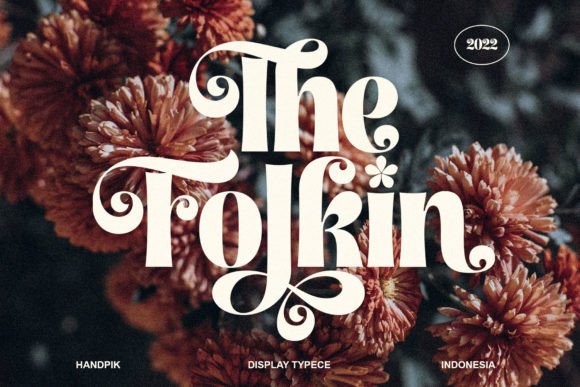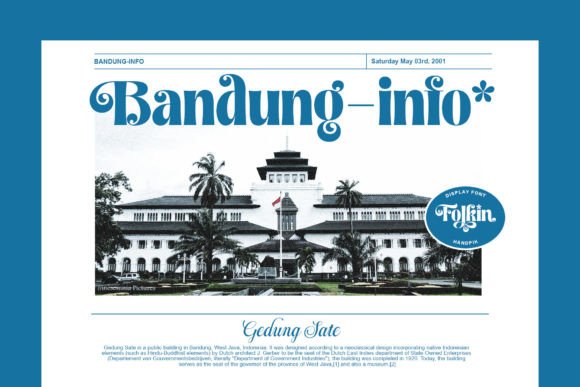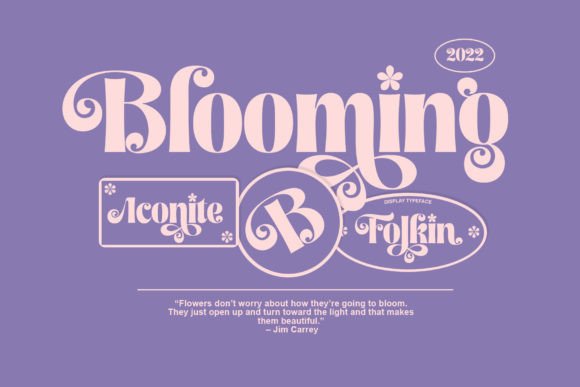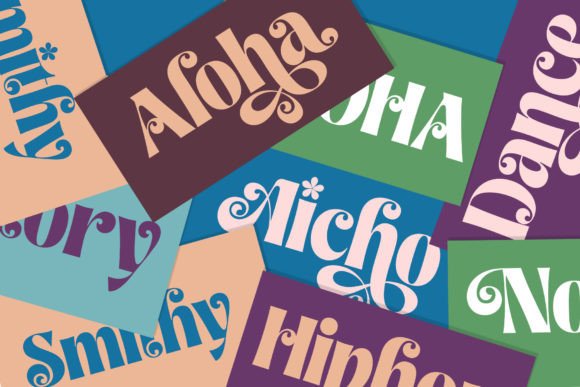
Folkin Font: Elegant Serif Display Font for Logo Design & Branding
About the Folkin Font
Introducing the Folkin Font, a beautifully crafted typeface designed to elevate your creative projects. Folkin is a serif display font that has a classic, feminine and elegant style. Masterfully designed to become a true favorite, this font has the potential to bring each of your creative ideas to the highest level!
Folkin’s elegant serif design excels in display contexts such as logos, headlines, and short-form text on packaging or posters. Its refined forms are less suitable for body copy or extended text blocks where readability suffers. Avoid using it for UI elements or long paragraphs.
The font’s personality is sophisticated and classic, lending itself well to brands emphasizing luxury, beauty, or heritage. It would be a strong choice for projects related to fashion, cosmetics, or fine arts.
Pairing Folkin effectively requires considering its inherent elegance. A clean sans-serif like Helvetica Neue could create a modern contrast. Alternatively, a script font with a similar level of refinement, but a less formal feel, would provide a harmonious yet varied pairing, creating a sophisticated and balanced aesthetic.